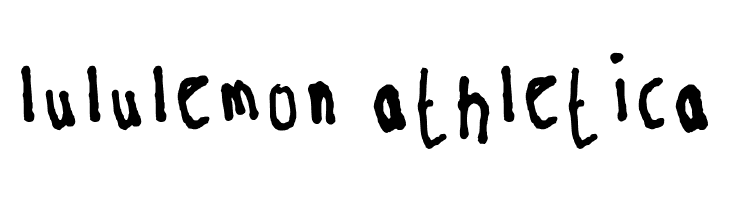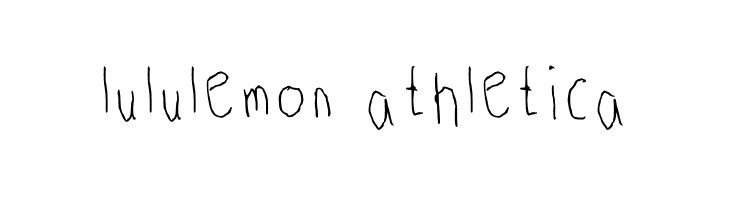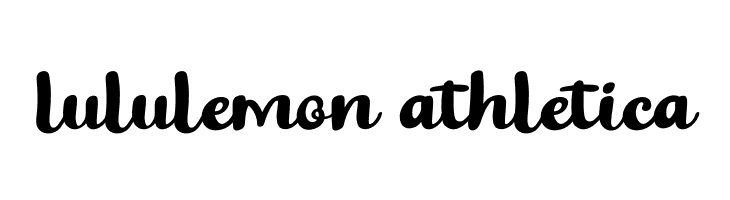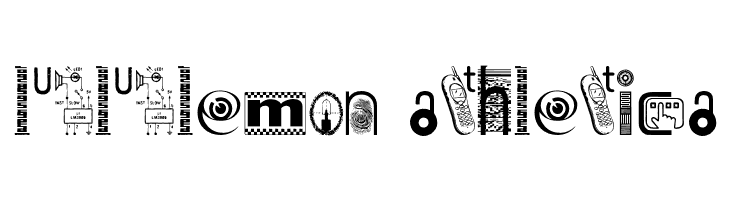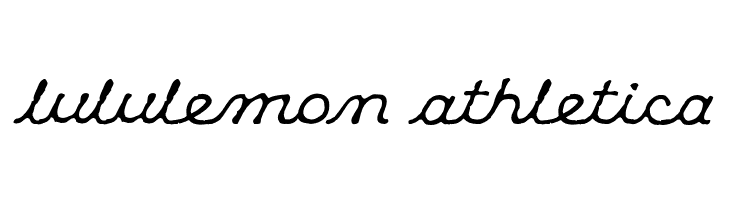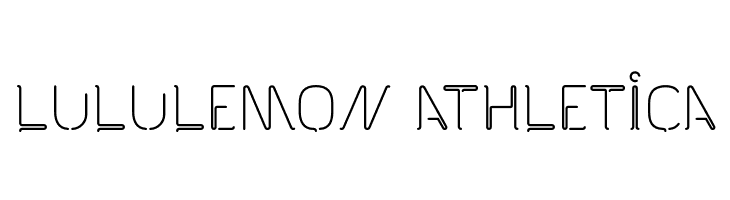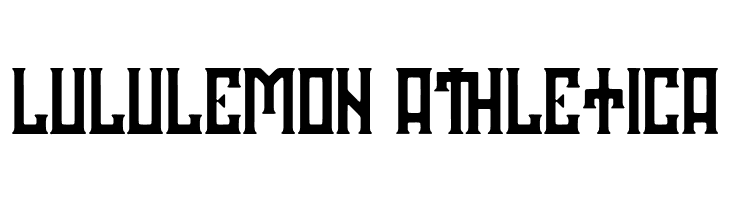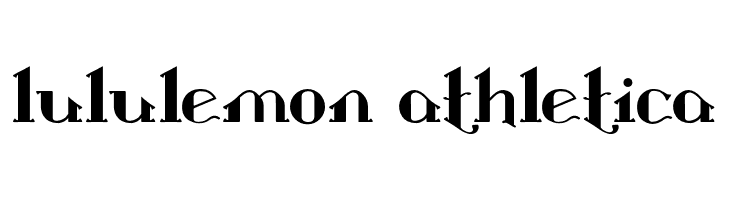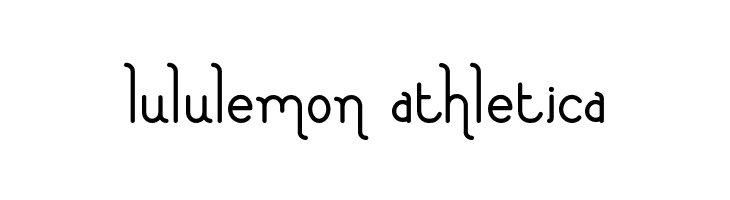
A bold, Gothic-inspired font with angular lines and high contrast, perfect for dramatic designs.
A chaotic and eclectic font with unique, symbol-rich characters.
A geometric, modern font with clean lines and a minimalist aesthetic.
A geometric and minimalist font with clean lines and a modern aesthetic.
A playful, casual script font with fluid, connected strokes and a handwritten feel.
A bold, hand-drawn font with playful, irregular characters.
A hand-drawn, whimsical font with thin, irregular strokes.
A bold, playful script font with smooth, flowing curves and a handwritten style.
A bold, high-contrast serif font with a modern vintage flair.
A whimsical and playful font with curly, decorative elements.